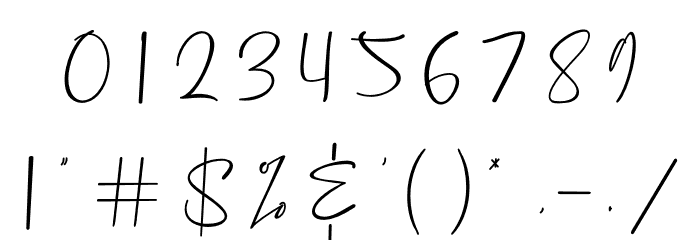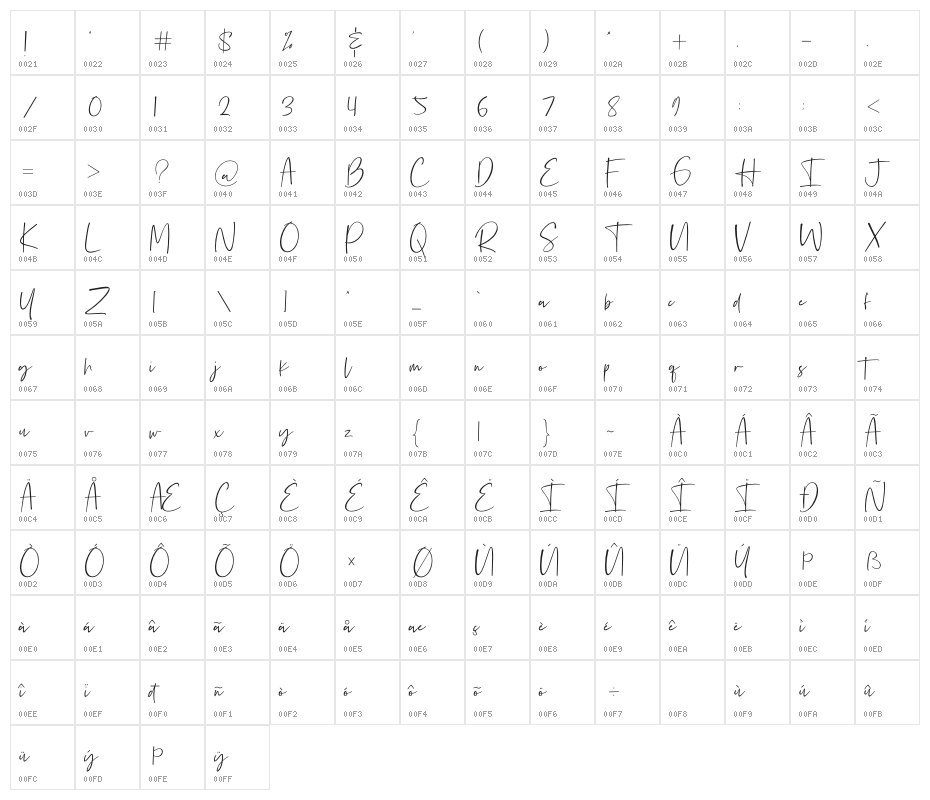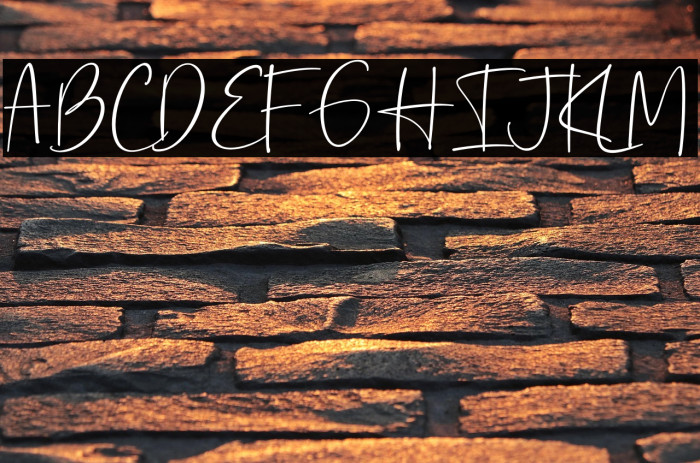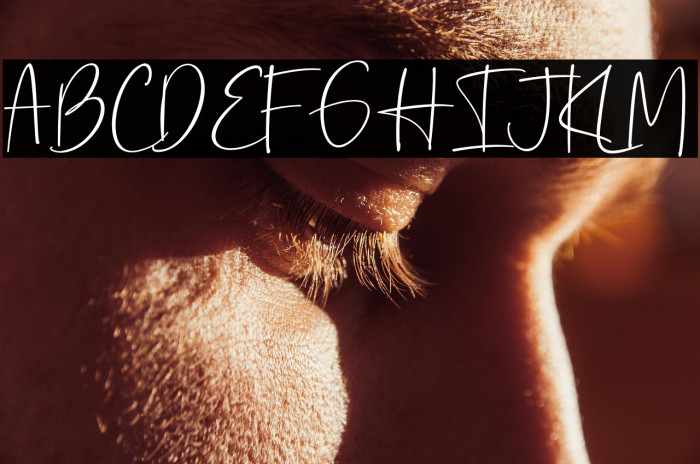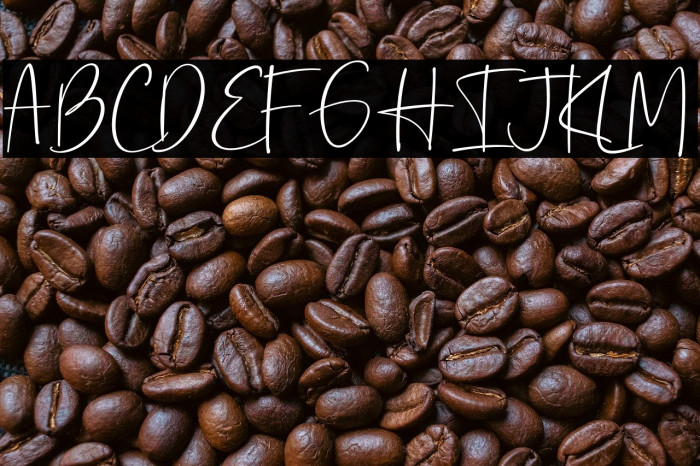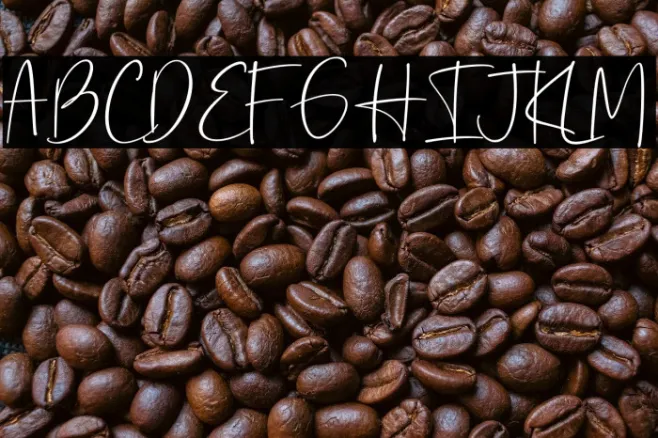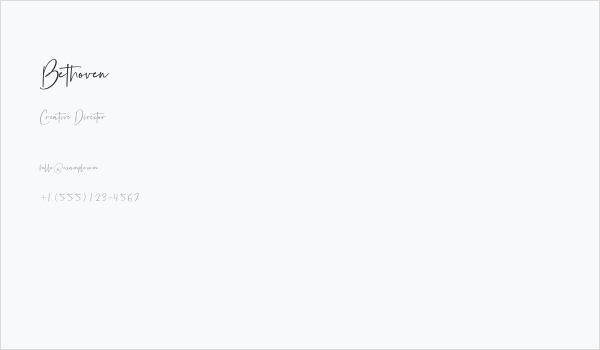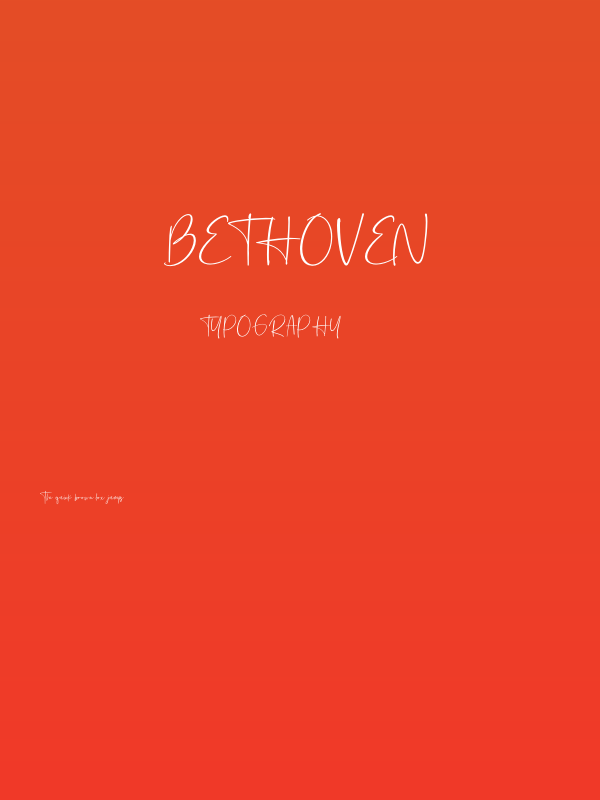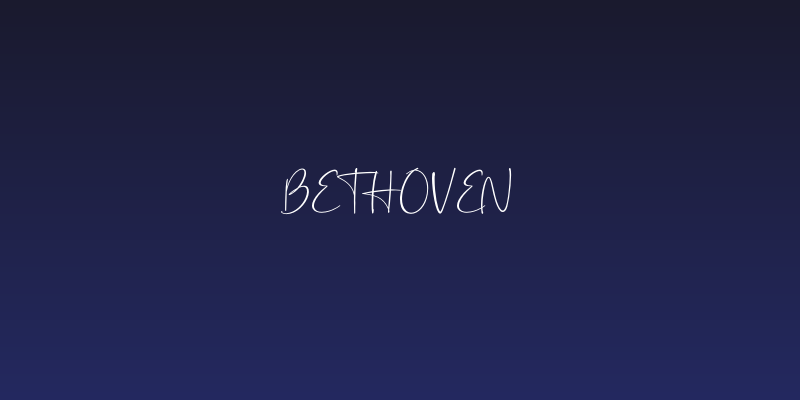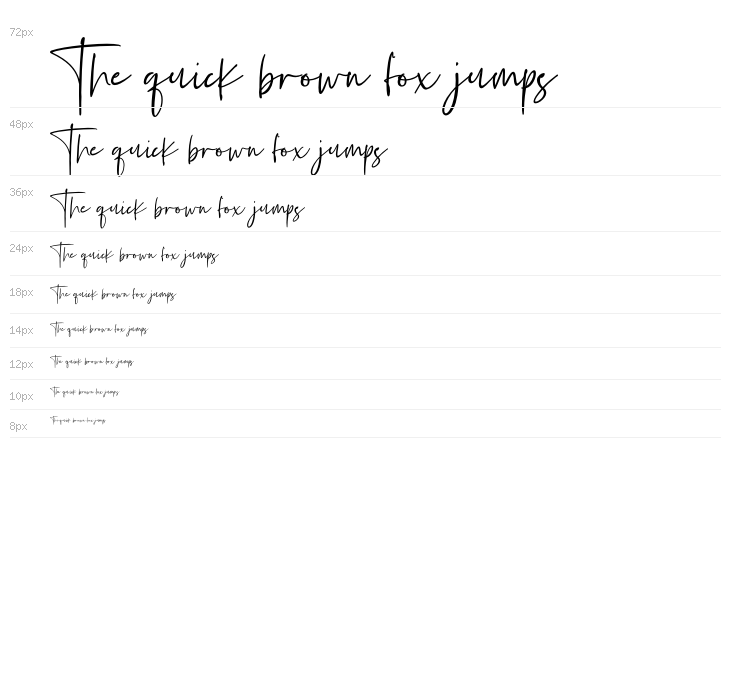
Bethoven Font
Bethoven Description
This font features a lively and expressive handwritten style, characterized by its fluid and dynamic strokes. The uppercase letters are tall and slightly narrow, with a playful yet elegant appearance. The lowercase letters maintain a consistent flow, enhancing the handwritten feel. Numbers and special characters are crafted with the same attention to detail, ensuring a cohesive look across all glyphs. The font's overall aesthetic is both modern and approachable, making it suitable for a variety of creative projects.
| Proposed Projects | Ideal for greeting cards, invitations, personal branding, and creative social media graphics. |